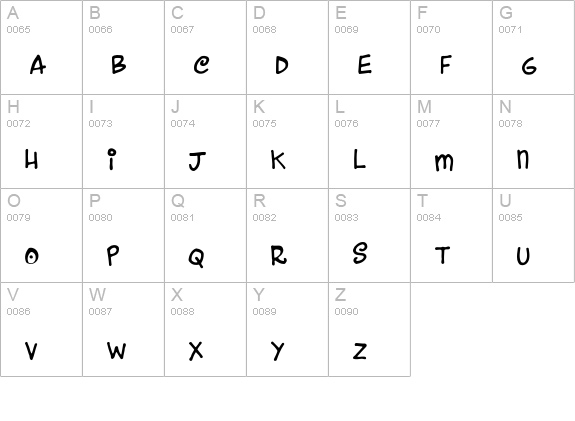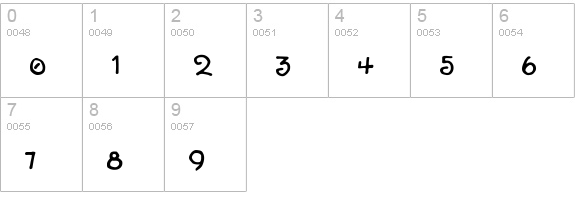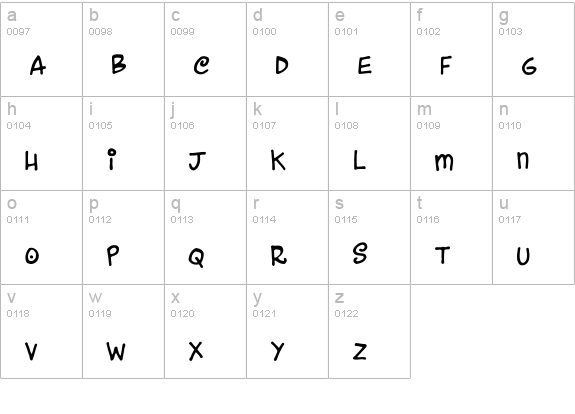
DanceParty Font Details
Introducing DanceParty font, a lively and dynamic typeface that is bound to bring the party to your designs! With its playful and energetic letterforms, DanceParty font adds a touch of excitement and movement to any project. This font is perfect for all your party-related designs, whether it's a flyer for a dance event, a birthday invitation, or even a club poster. Its unique and eye-catching design will grab the attention of your audience and set the mood for an unforgettable celebration. But what sets DanceParty font apart from the rest is that it is not just a font, it is a font that is free! That's right, you can download this amazing typeface completely free of charge at FontsMarket.com. We believe that everyone should have access to high-quality fonts without breaking the bank, and DanceParty font embodies this philosophy. So why wait? Get your hands on DanceParty font today and let the party begin! Whether you're a professional designer or a DIY enthusiast, this font will elevate your designs to the next level. Don't miss out on the opportunity to add a touch of fun and excitement to your creative projects with DanceParty font. Download it for free at FontsMarket.com and let your creativity shine!